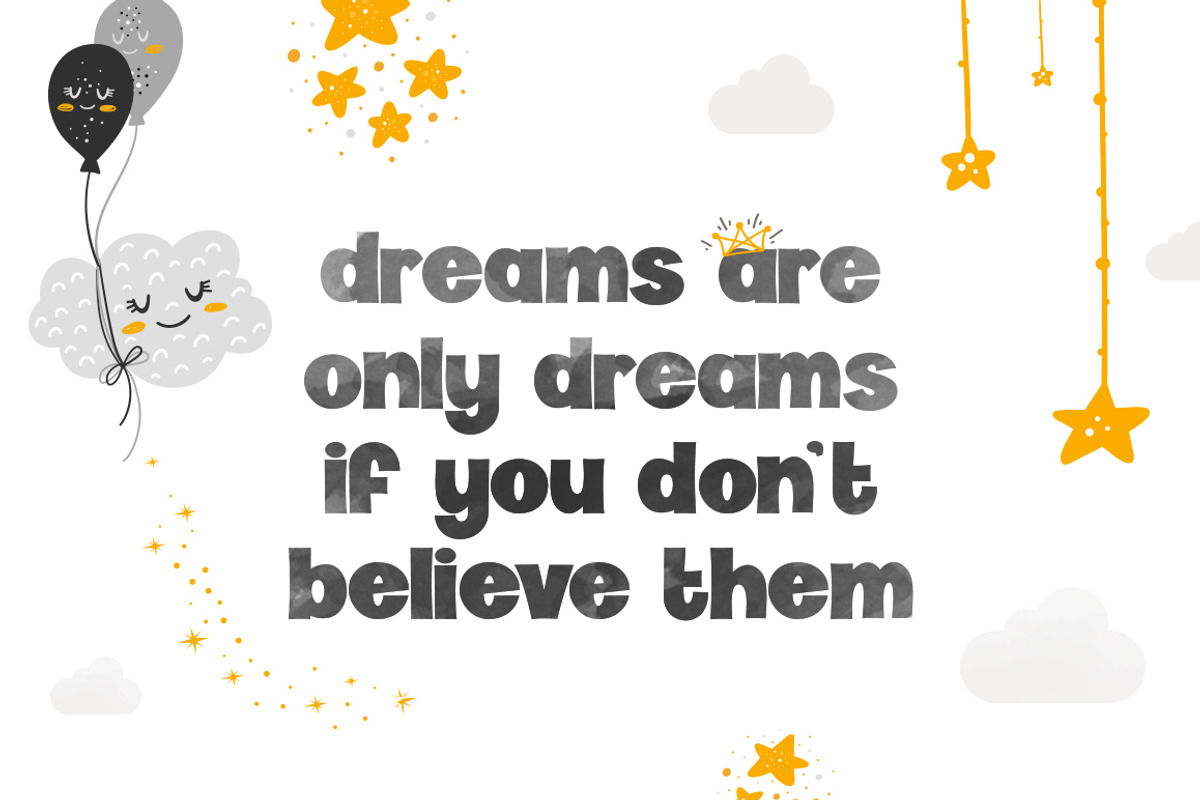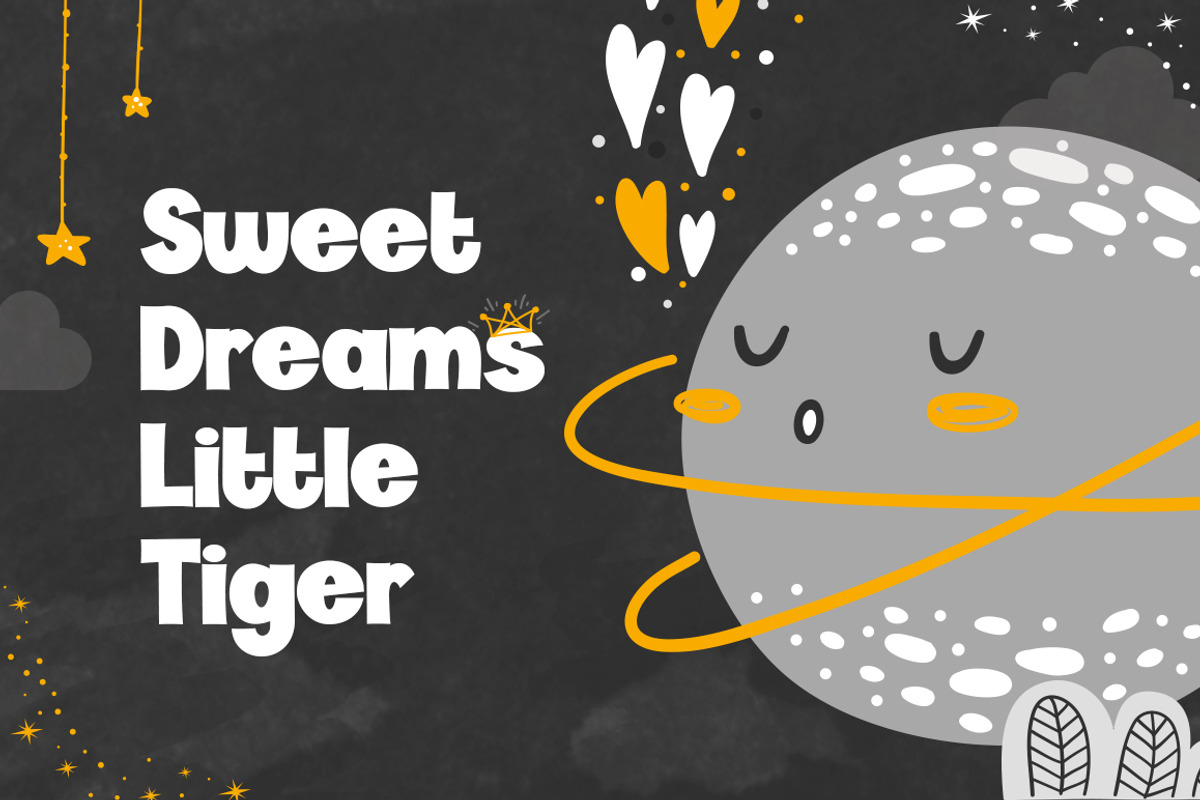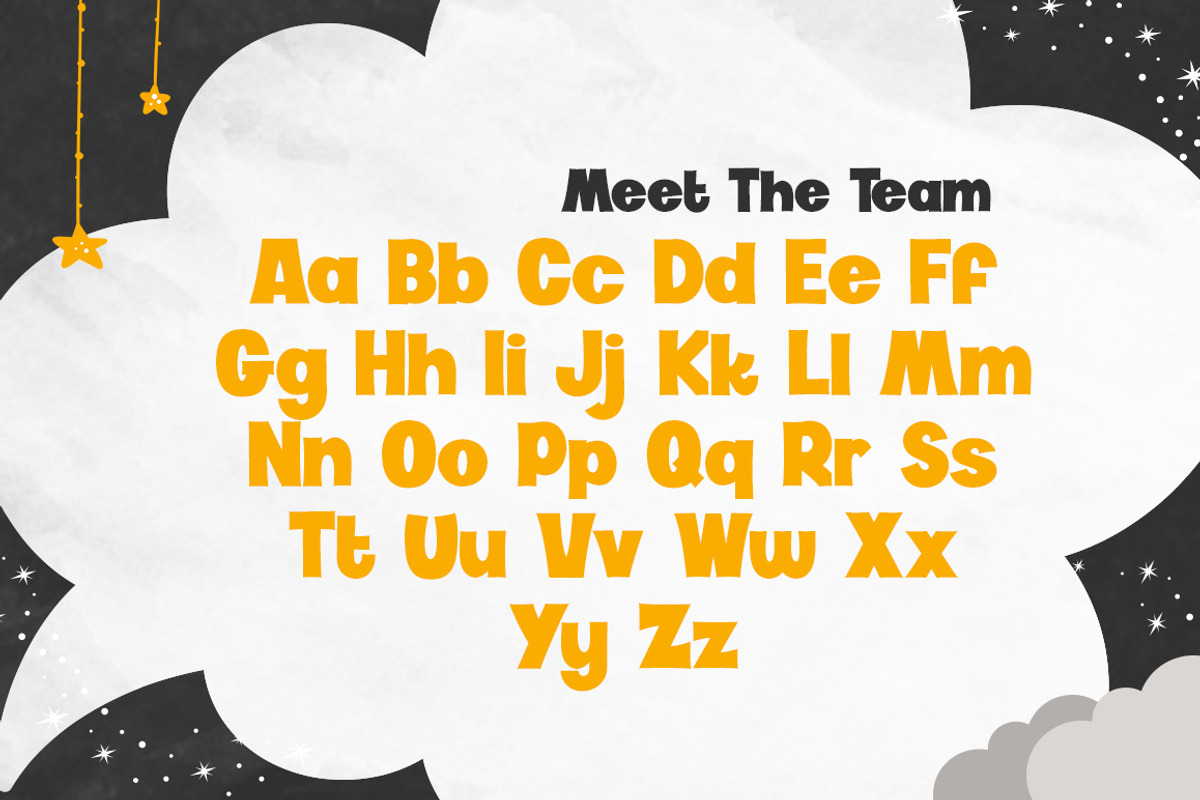
Twilight Font
Check out our new font Twilight! A fabulous new offering that is sans but not as you know it! Kooky characters are what makes this font unique and offers a more modern twist on a classic. Enjoy!
- Kooky characters are what makes this font unique and offers a more modern twist on a classic.
Why Twilight Font is worth a look
Twilight Font by Salt & Pepper Designs fits naturally into Branding, posters, packaging, typography.